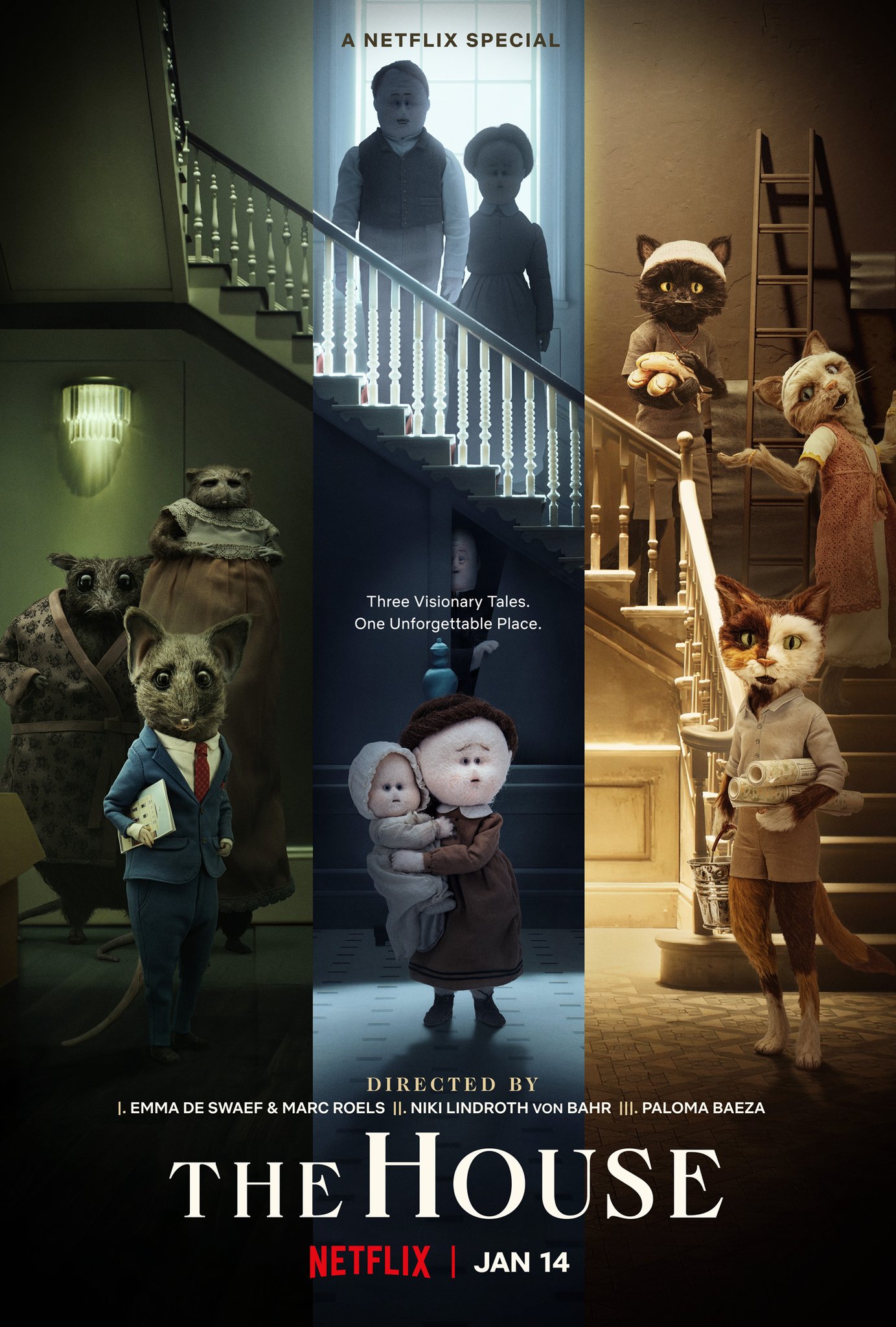
The House Movie Font
AnimationThe House is a 2022 British animated anthology film that features a collection of stories centered around a haunted house. It is directed by several notable animators and features a diverse cast of voice actors.
Brick Display Regular is the font used for The House title on the poster. It is a serif typeface designed by Fermín Guerrero for Colophon Foundry. The design took inspiration from the signage of three pubs in London’s East End. Both text and display optical sizes of the family are offered in five weights.